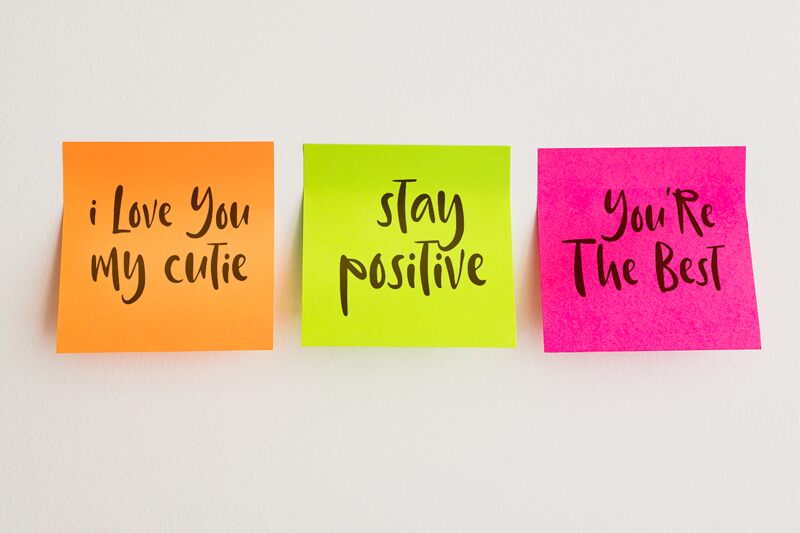
Cunthil, a handwritten font designed by Panggah Laksono @ Abo Daniel Studio, is perfect for adding a personal touch to your projects. Its condensed shape gives it an air of sophistication and elegance, making it an ideal choice for logos, invitations, greeting cards and other creative designs. With its bold strokes and intricate curves, Cunthil will help you make a lasting impression.
Cunthil